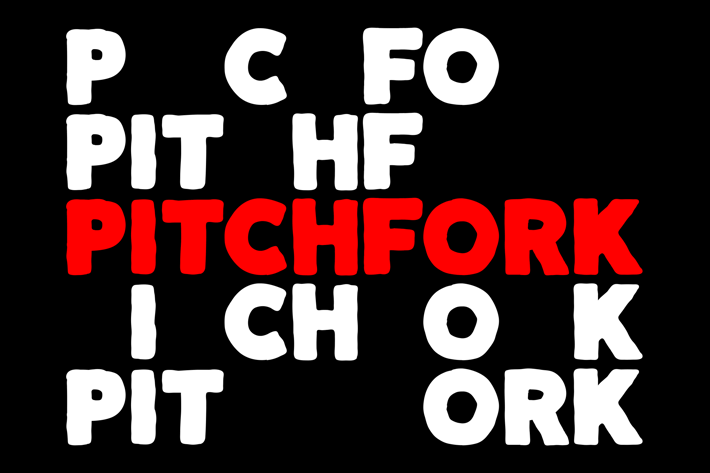
Pitchfork - Powerful Sport Font
Pitchfork comes with all caps, full power, no nonsense.
Perfect for any sport related poster and motivational print, t-shirt, headline, gymnastic quote, anything !
PITCHFORK !